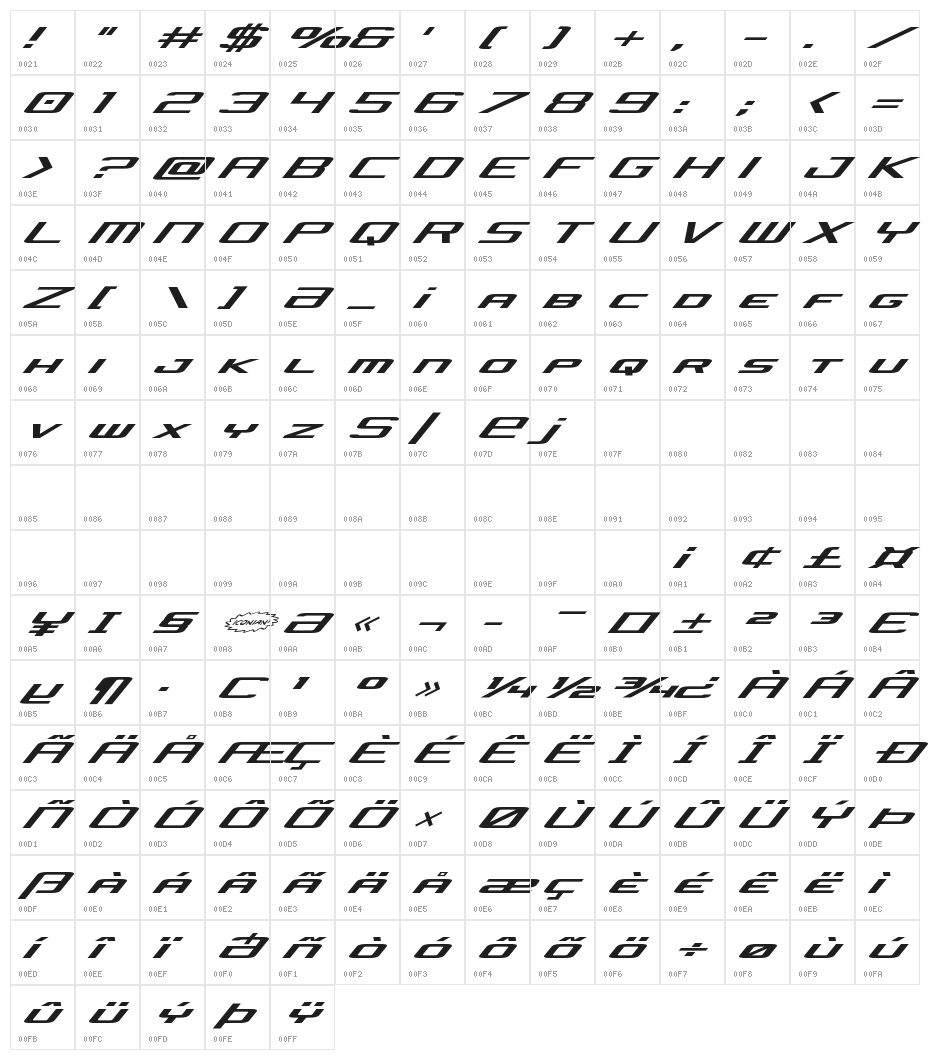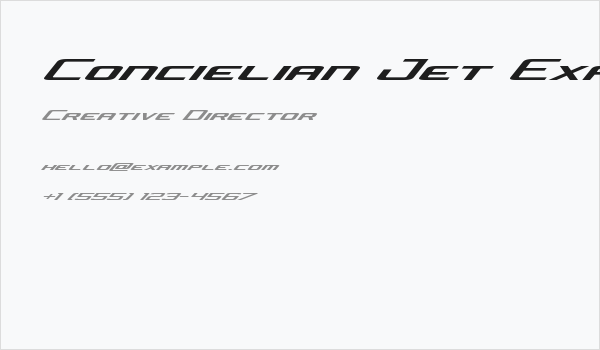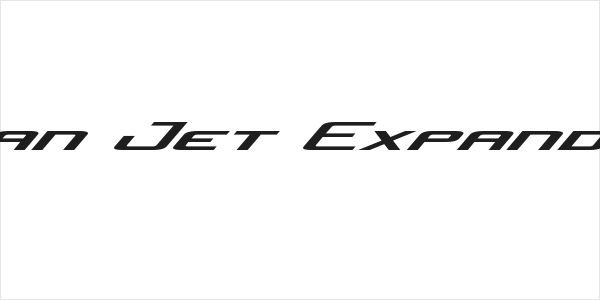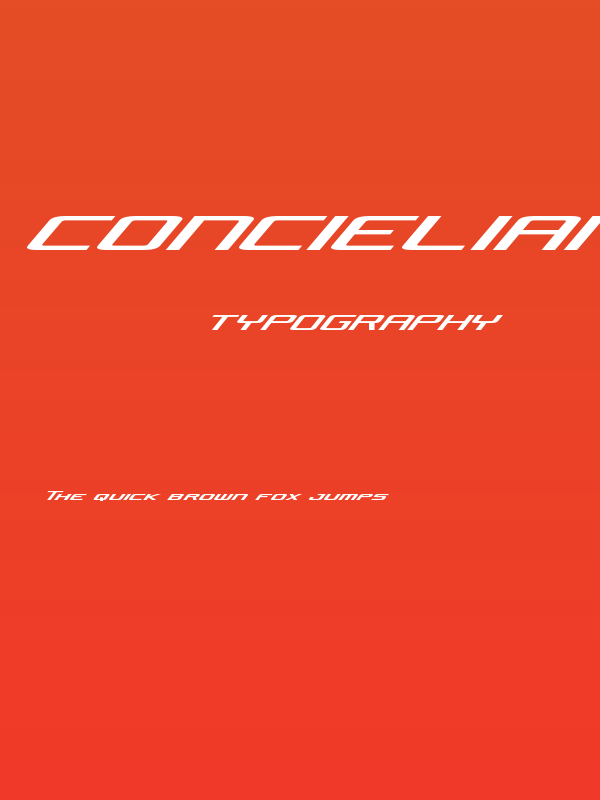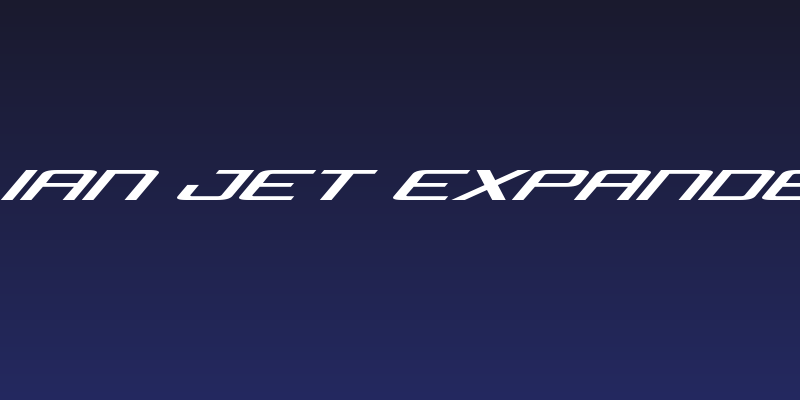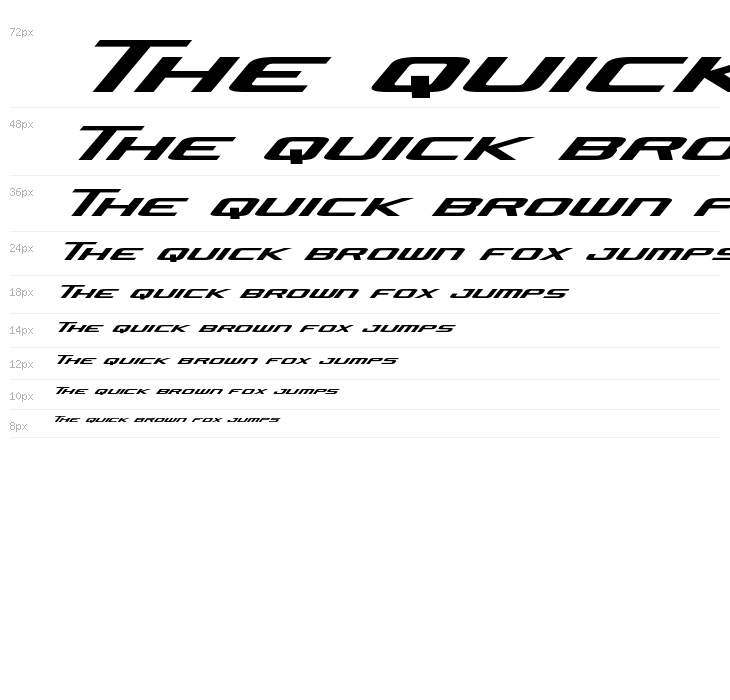
Concielian Jet Expanded Italic Font
Concielian Jet Expanded Italic Description
This font exhibits a sleek, modern design with an italicized slant, giving it a dynamic and forward-moving appearance. The characters are expanded, providing a sense of openness and space. The strokes are consistent in thickness, contributing to a uniform and cohesive look. The angular and geometric shapes of the letters add a futuristic and tech-inspired feel. The font maintains clarity and readability, making it suitable for various applications where a modern and energetic style is desired.
| Overall Style | Futuristic, Energetic |
| Use Case | Logos, Headlines, Branding |
| Proposed Projects | Ideal for technology branding, sports team logos, automotive advertising, and futuristic-themed designs. |